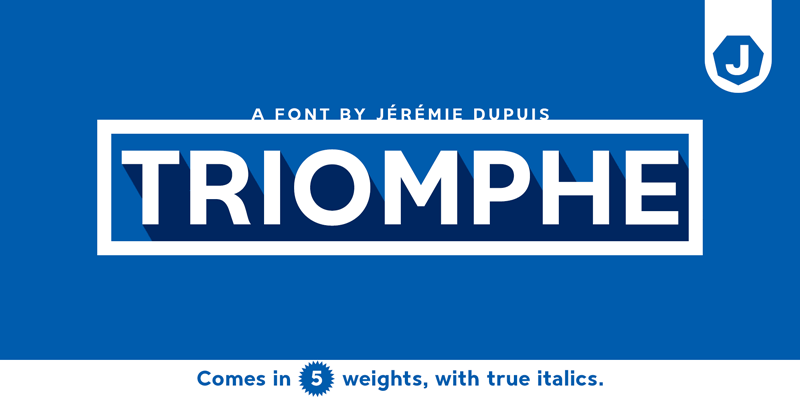
Font name: | Triomphe |
Author: | Jérémie Dupuis |
Note by Jérémie Dupuis | |
Triomphe is sans-serif with a bold personality. It’s inspired by popular 30s hand-lettering found on the British Ministry of Information's propaganda posters during the war. It has five weights and a flowing italic, good for use in bold statements on posters, or in vintage typesetting. Learn more on my website: http://www.jeremiedupuis.com/fonts/Triomphe |